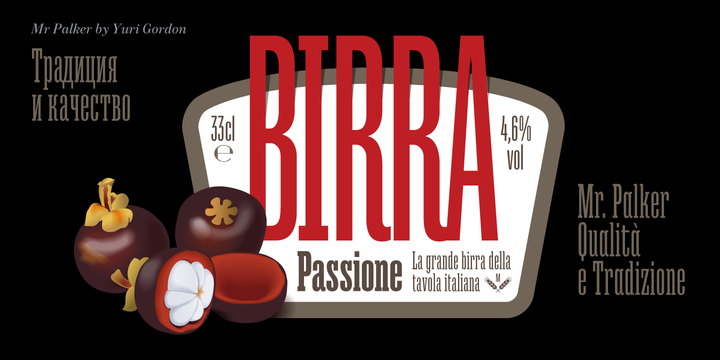
Mr Palker Font Family
A slab serif Mr Palker and grotesque Mr Palkerson build one superfamily together. These are blank types. In a way even the display ones. Typefaces for newspapers, announcements, cheap advertising and police posters.